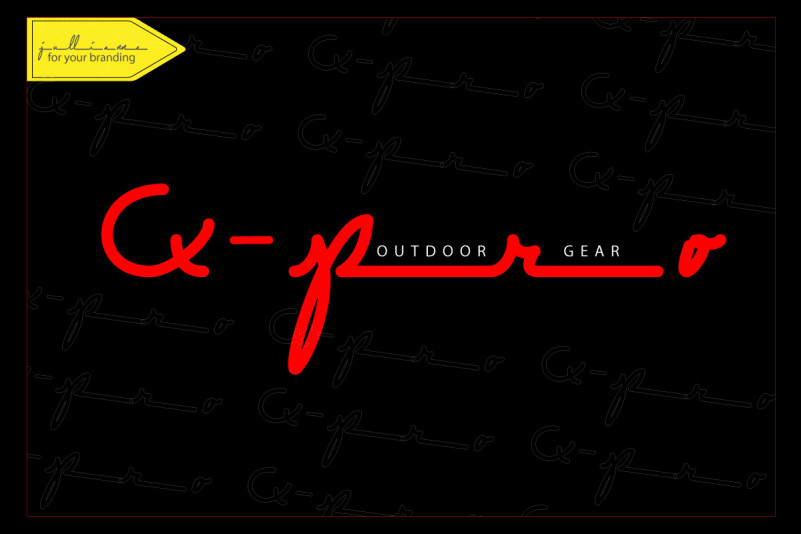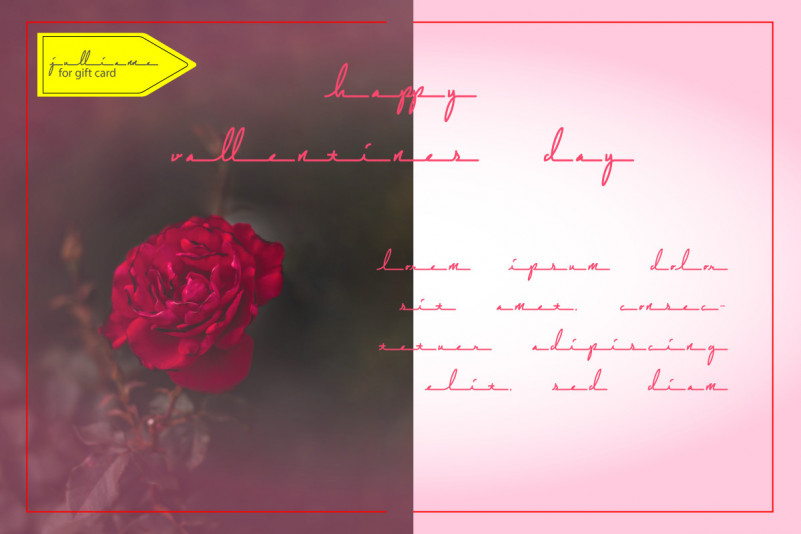
Jullianne Script Font
Jullianne Script Font is a luxurious & minimalist font script with a monoline style. This collection is perfect for personal branding that intends to be used as a watermark and business card.
Jullianne also can be used for various purposes such as wedding invitation, graphic design, print design, web design, logo, branding, and others.
– Lowercase begining swashes